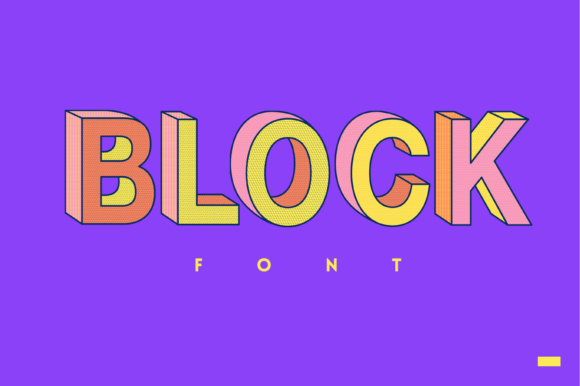
The Block Font: A Pop Art Icon for Your Designs
I’ll never forget the time I was working on a project for a client who wanted a bold, eye-catching font that screamed pop art. I scoured the internet, tried countless fonts, but nothing seemed quite right. That was until I stumbled upon Block, an incredibly iconic display font that instantly brought the project to life. In this article, I’ll share my experience with Block, its features, and how to make the most of this amazing font.
Block is more than just a font – it’s a statement piece. Here’s what I love about it:
• ✨ Unique style: Block’s bold, chunky letters are reminiscent of classic pop art and cartoons.
• ✅ Color font capabilities: As an Opentype-SVG font, Block can be used in a variety of design software, including PhotoShop, Illustrator, Silhouette, and Inkscape.
• ✅ Easy to read: Despite its bold style, Block is surprisingly legible, even at smaller sizes.
However, there are a few things to keep in mind:
• 🤔 Learning curve: If you’re new to color fonts or Opentype features, it might take some time to get familiar with Block’s capabilities.
As an Opentype font, Block offers a range of features and glyphs to enhance your designs. Here are a few tips:
• Glyphs: Use Block’s glyphs to add unique touches to your designs, such as custom ligatures or stylistic alternates.
• Stylistic alternates: Experiment with Block’s stylistic alternates to create different variations of your text.
The Story Behind Block
Block was inspired by the pop art movement of the 1960s, with its bold colors and graphic styles. The font’s designer wanted to create a typeface that captured the playful, energetic spirit of cartoons and comics. The result is a font that’s both nostalgic and modern, perfect for designs that need a bold statement.